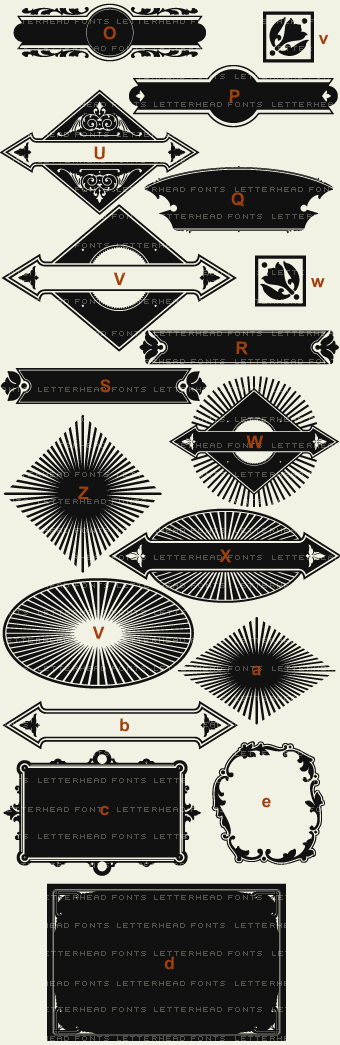
Mike Jackson's bold State Fair is reminiscent of lettering used on old stock certificates and letterhead from the late 1800's. With its extra wide letters and ornate features, State Fair commands attention. Set includes 4 versions: Regular, Lined, Light, and a Bonus Panel version complete with 42 unique panels and 20 ornaments.